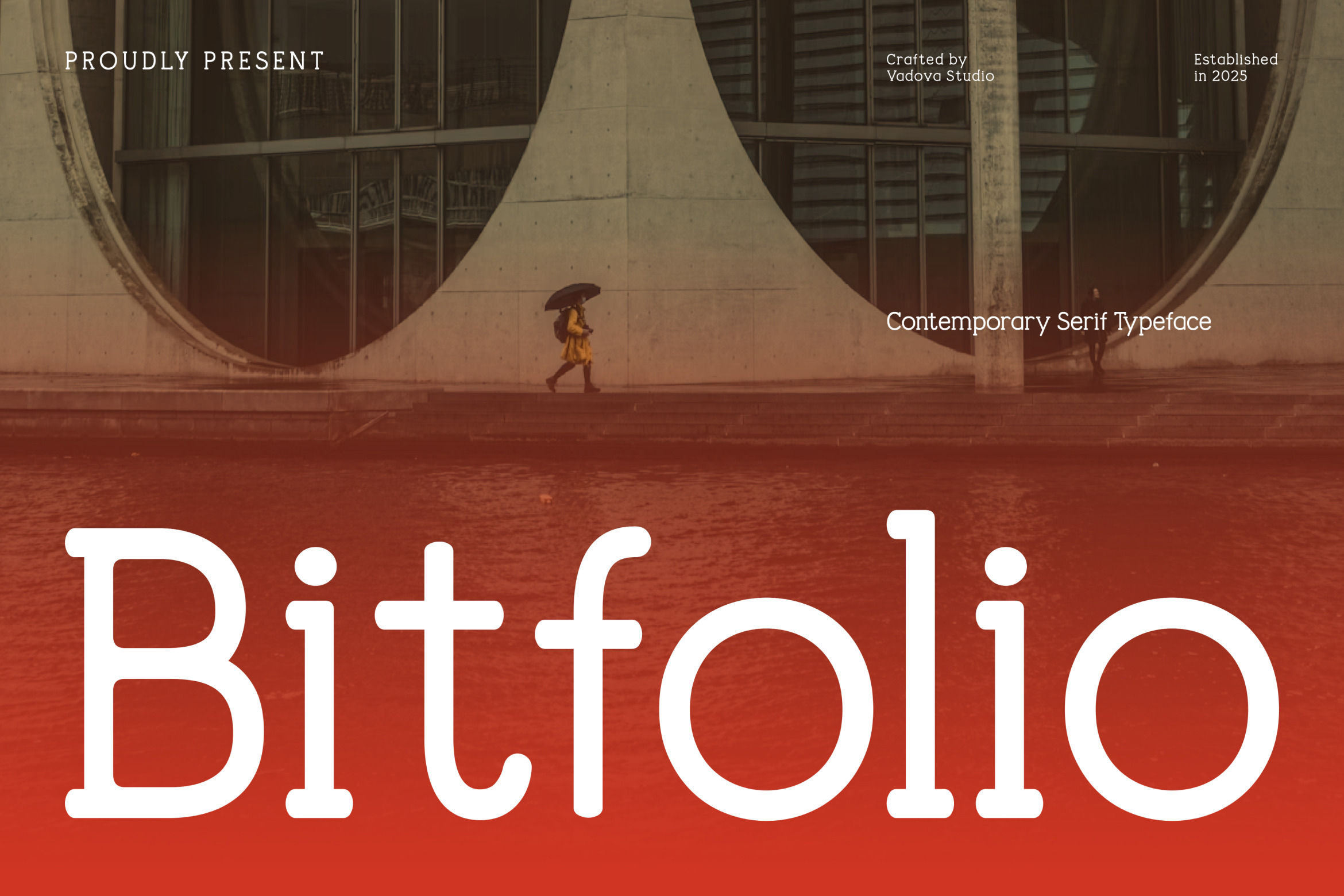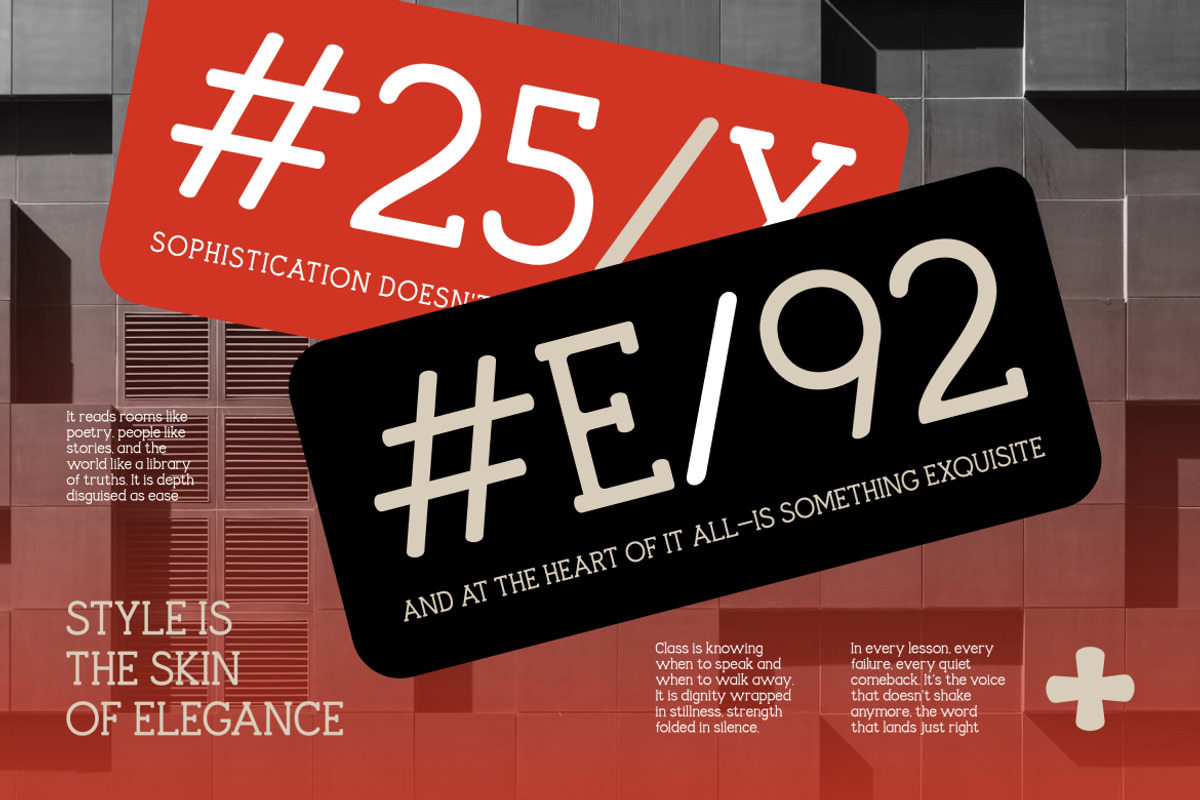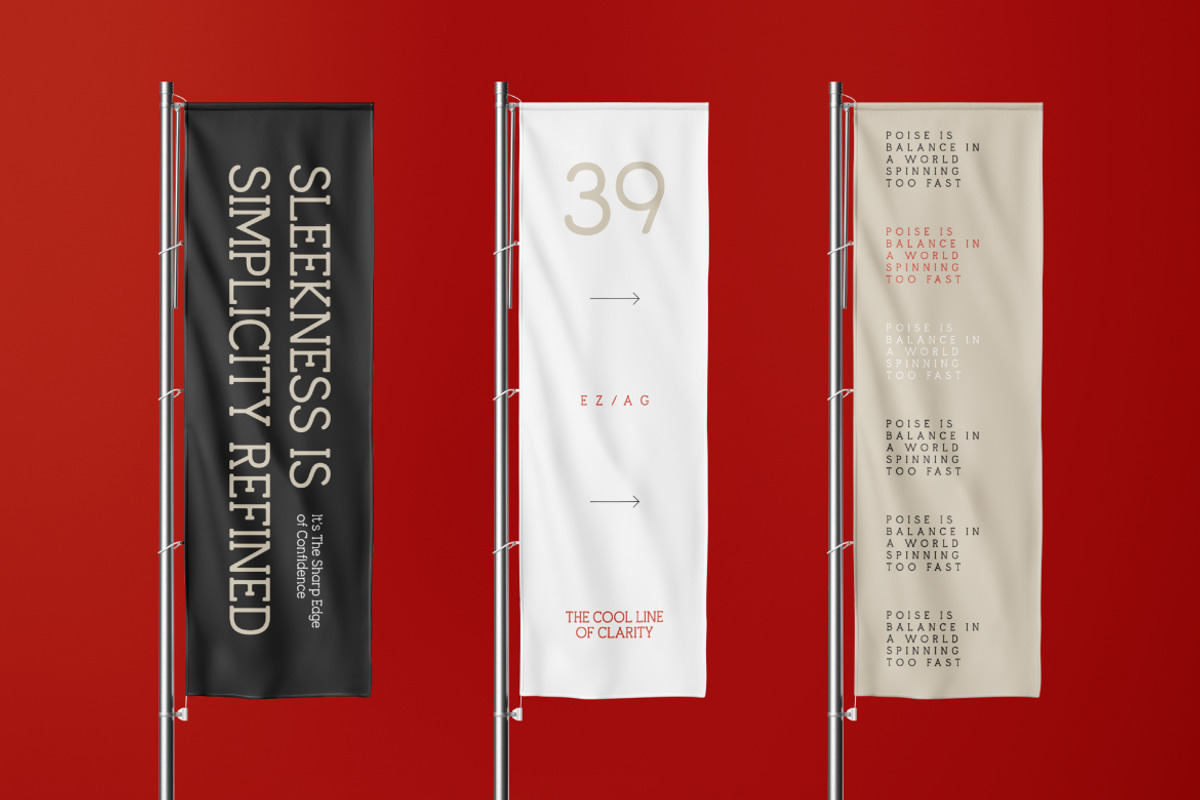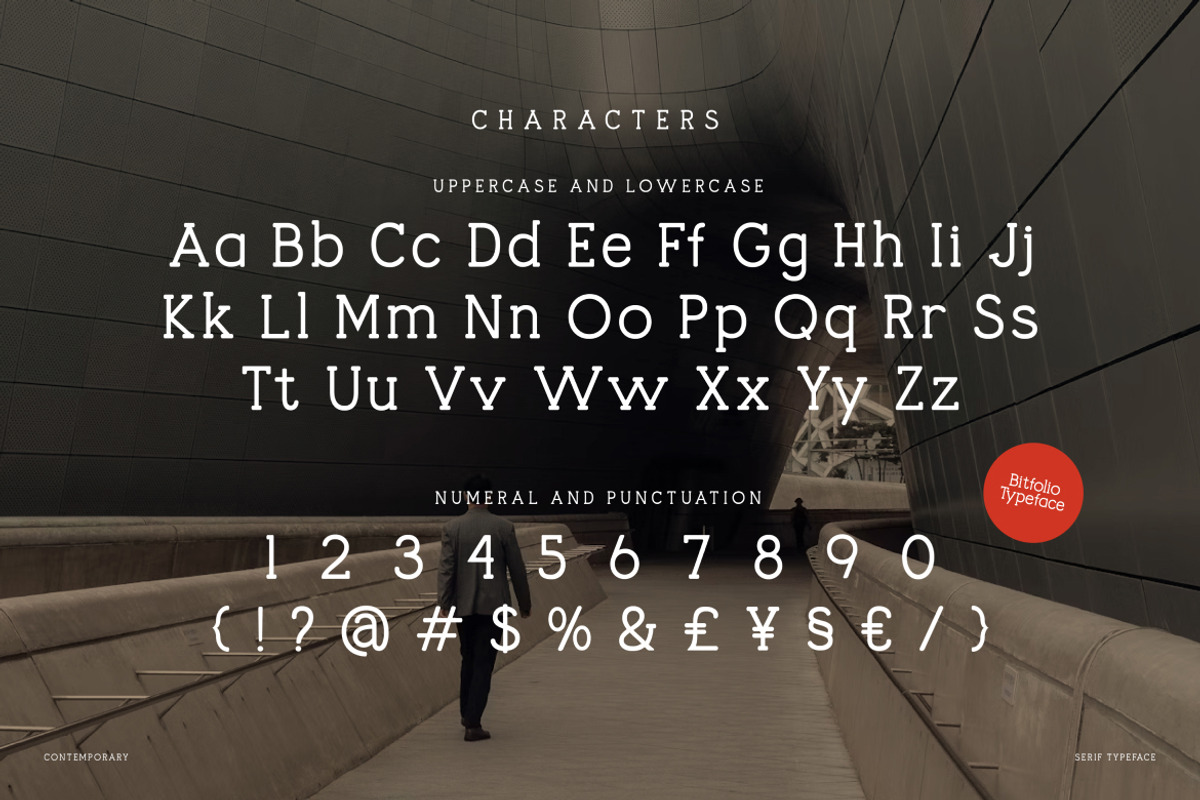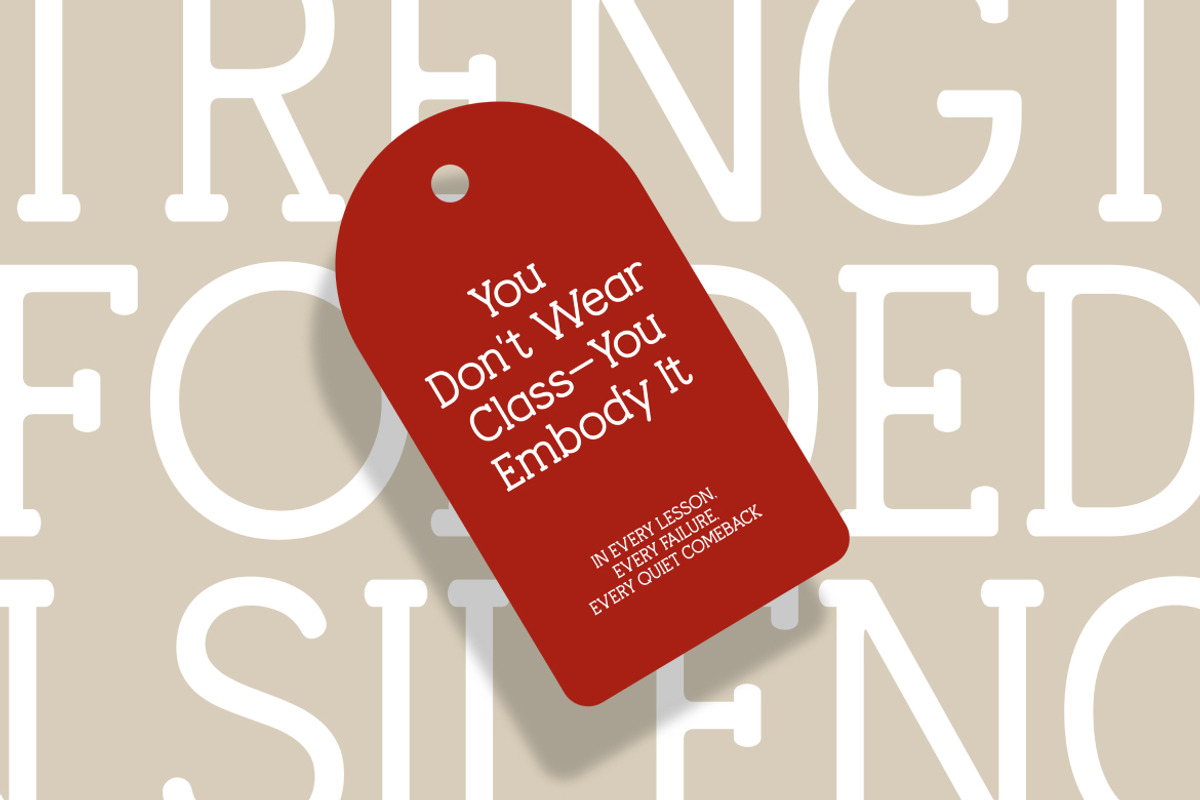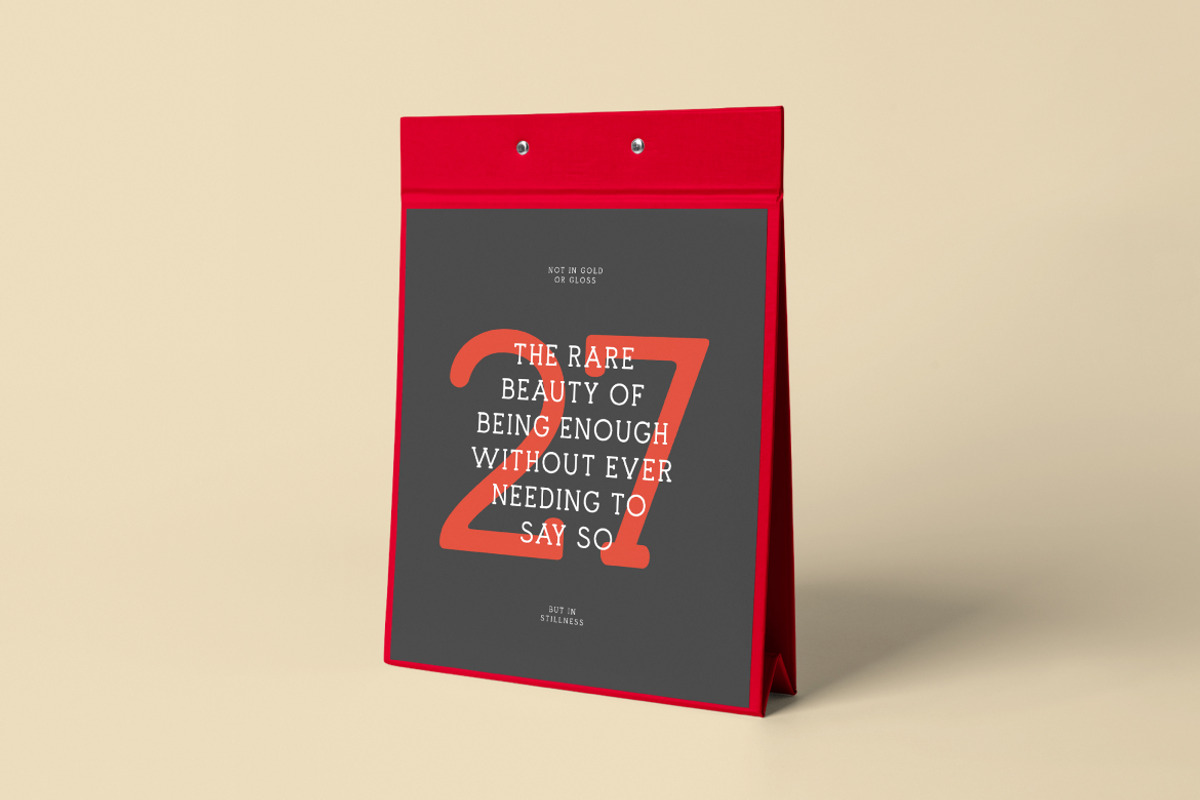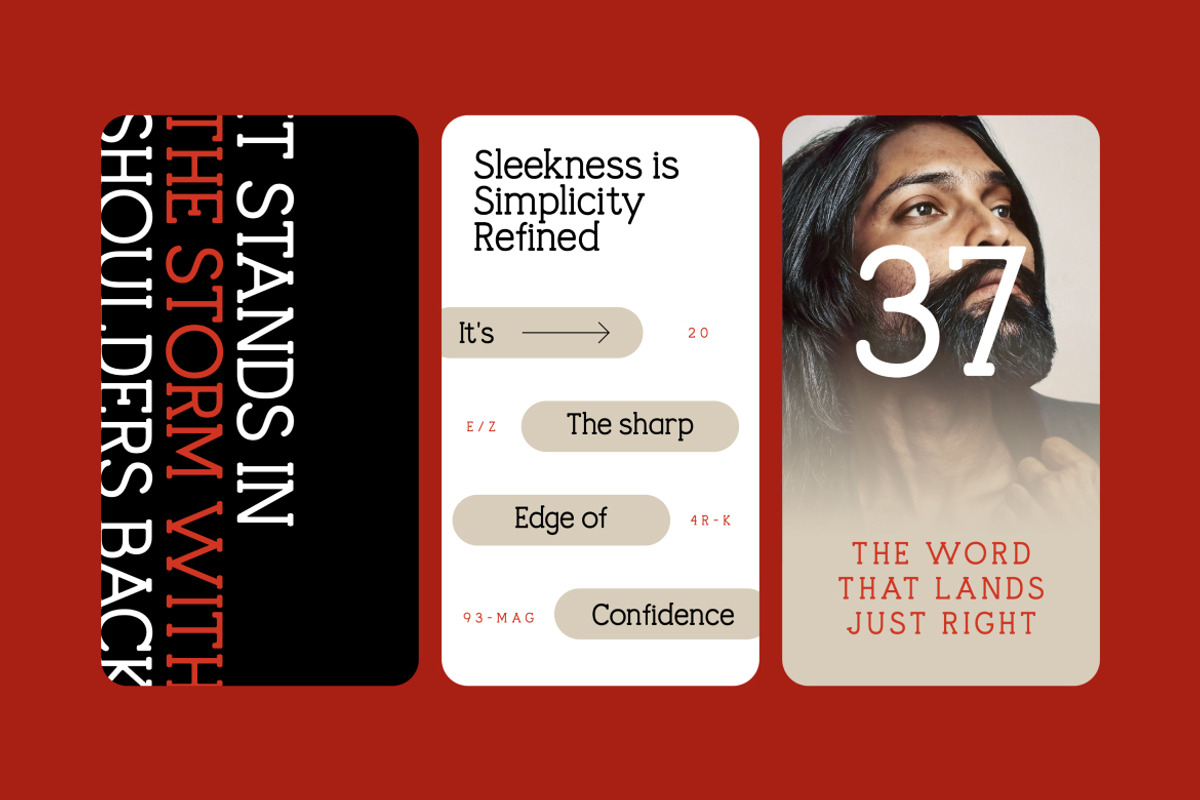
Bitfolio Contemporary Serif Font
Bitfolio is a modern rounded serif typeface that balances structure and softness in perfect harmony. Designed for contemporary applications, Bitfolio features clean lines, generous spacing, and subtly curved terminals, making it both approachable and highly legible across print and digital media.
Equipped with uppercase, lowercase, numerals, punctuation, and full multilingual support, this typeface is a reliable choice for a wide range of design scenarios. Bitfolio’s refined appearance and versatile tone make it a sophisticated option for designers who want elegance, clarity, and contemporary charm in one cohesive package.
- Rounded serif style with clean geometric base
- Elegant, soft-corner letterforms for a balanced aesthetic
- Perfect for editorial layouts, brand identity, and professional publications
- Uppercase, lowercase, numerals, and punctuation included
- Multilingual character support
- Designed for both print and digital projects
- High readability at various sizes
- Ideal for magazines, journals, and web typography
Relevance and Use Cases is editorial layout, business report, corporate branding, personal portfolio, presentation, CV design, blog typography, web article, educational content, book layout.
Blend professionalism and approachability effortlessly with Bitfolio